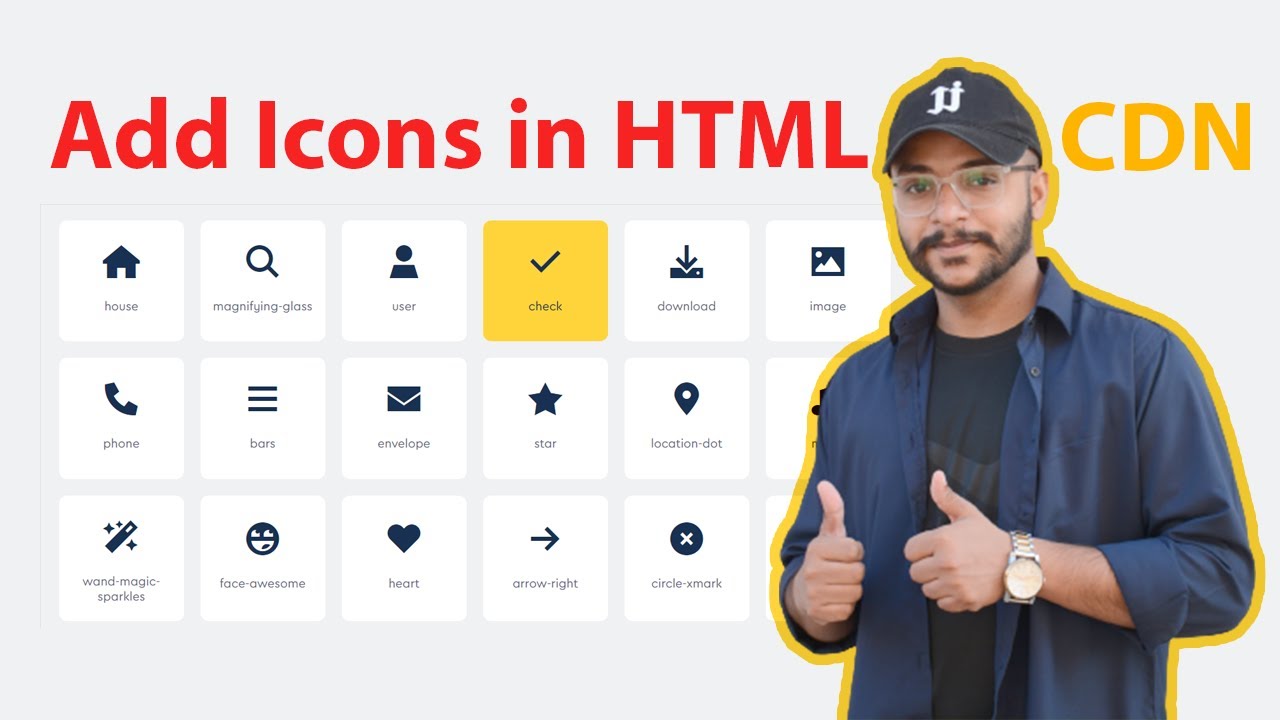
Box Archive Solid Icon Font Awesome
Box Archive Solid Icon Font Awesome Box archive icon in the classic solid style. available now in font awesome. Customise, download, get code samples for "box archive" icon from font awesome solid icon set.
Toolbox Solid Icon Font Awesome The box archive icon is part of the font awesome 6 solid collection, crafted by dave gandy. you can customize its color, size, or stroke and use it instantly in your design or development projects. Click to download box, fontawesome, archive, awesome icon from font awesome iconpack by font awesome team. Download this box, archive icon in solid style. available in png and svg formats. no signup required. Box archive font awesome icon is part of solid icons. we can display box archive font awesome icon using 3 different ways depending upon our requirement. to display box archive font awesome icon, add predefined class name i.e., fa box archive (with prefix fa ) to the i tag.
Font Awesome Box Archive Icon Font Awesome Iconpack Font Awesome Team Download this box, archive icon in solid style. available in png and svg formats. no signup required. Box archive font awesome icon is part of solid icons. we can display box archive font awesome icon using 3 different ways depending upon our requirement. to display box archive font awesome icon, add predefined class name i.e., fa box archive (with prefix fa ) to the i tag. A solid weight icon from font awesome, a free web icon font. the svg code is valid. this awesome icon was created with a text editor. this file is licensed under the creative commons attribution 4.0 international license. attribution – you must give appropriate credit, provide a link to the license, and indicate if changes were made. Box archive icon in the version 6 classic solid style. available now in font awesome 6. Box icon in the classic solid style. available now in font awesome.